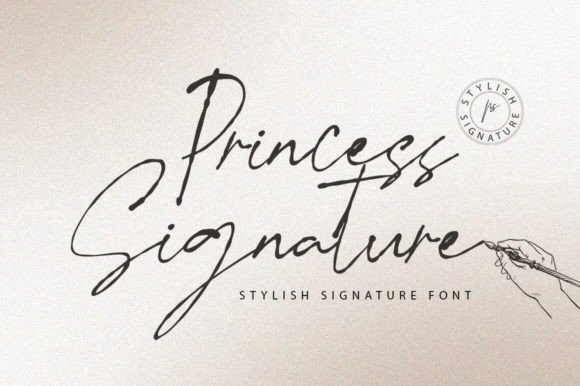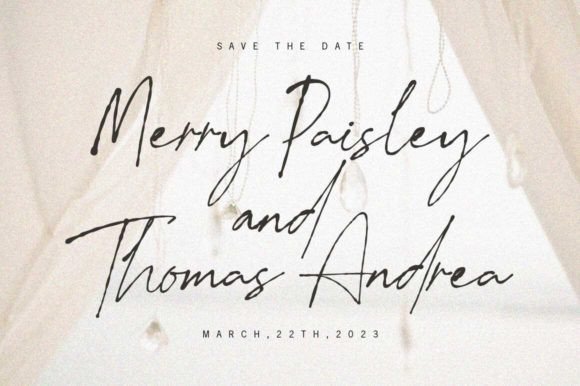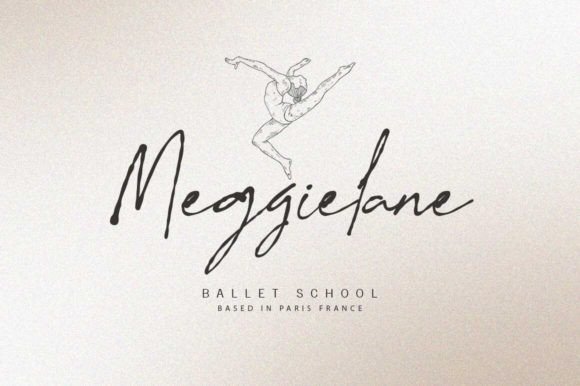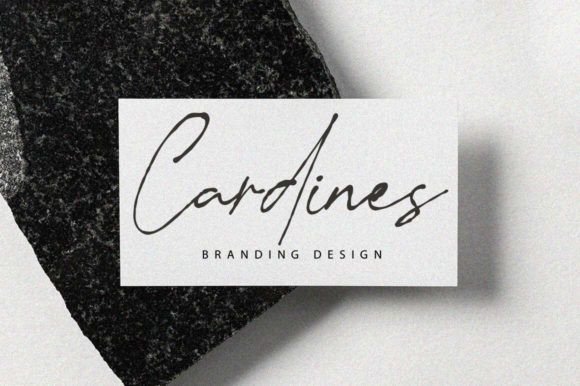
Princess Signature Font
About the Princess Signature Font
Discover the charm of Princess Signature Font. This font is a perfect blend of modern aesthetics and classic appeal. Princess Signature is the newest signature font with a truly amazing combination of old style and modern style. Perfectly designed from beautiful natural handwriting for any design project you can think of. Perfect for branding, business cards, quotes, posters, stickers, blogs, logos, weddings, birth announcements, photo overlays, printed items, bags, t-shirts and more.
Princess Signature’s elegant and slightly playful personality makes it ideal for headlines, logos, short quotes, and branding projects requiring a touch of sophistication. It works exceptionally well on packaging for luxury goods or boutique products and adds a personal touch to wedding invitations or stationery. However, its ornate nature makes it unsuitable for body text or UI elements where readability is paramount. Extended use could strain readability.
Pairing Princess Signature with a clean sans-serif like Open Sans for body copy creates a balanced contrast, while a classic serif font such as Garamond adds to its timeless appeal. For a more modern feel, consider pairing it with a geometric sans-serif like Montserrat. Avoid pairing it with other highly decorative fonts to prevent visual clutter.
The font exudes a sense of refined femininity, making it a strong choice for brands focused on beauty, fashion, or luxury goods. Its handcrafted feel also works well for projects emphasizing authenticity and personal expression.
Princess Signature Font Usage Examples
Princess Signature Font Example